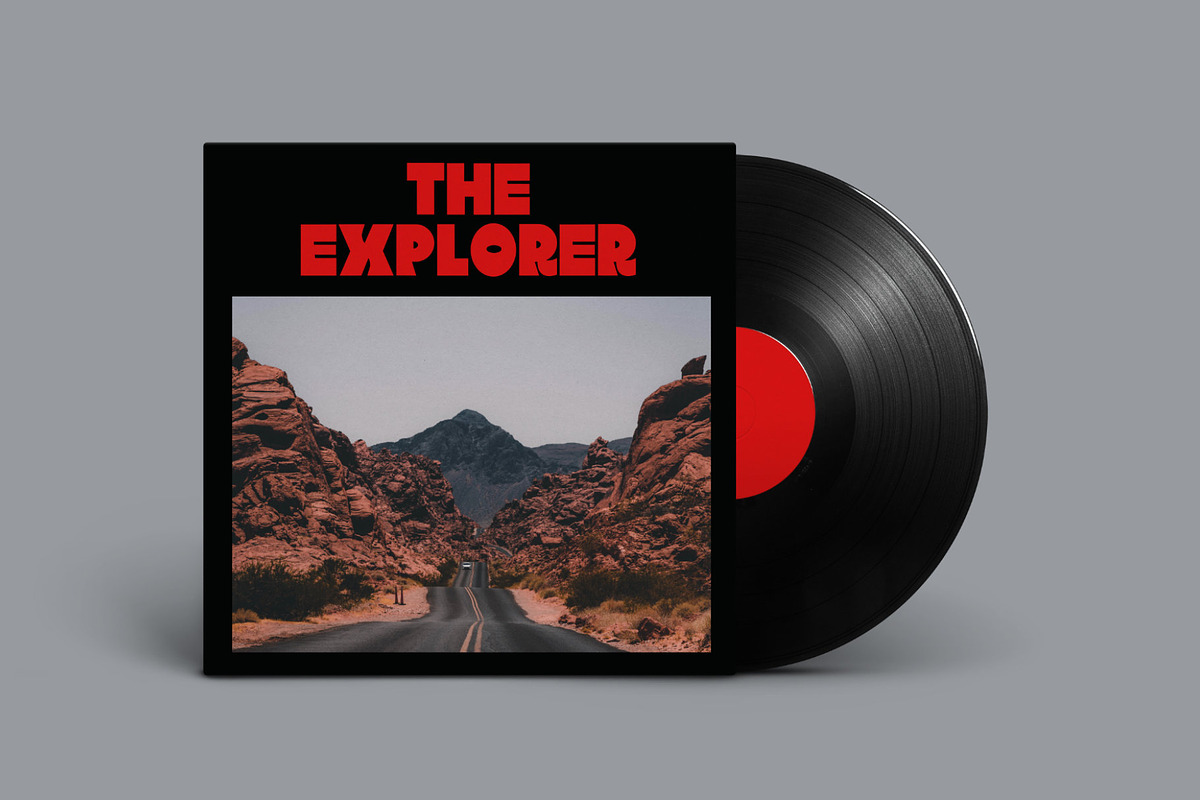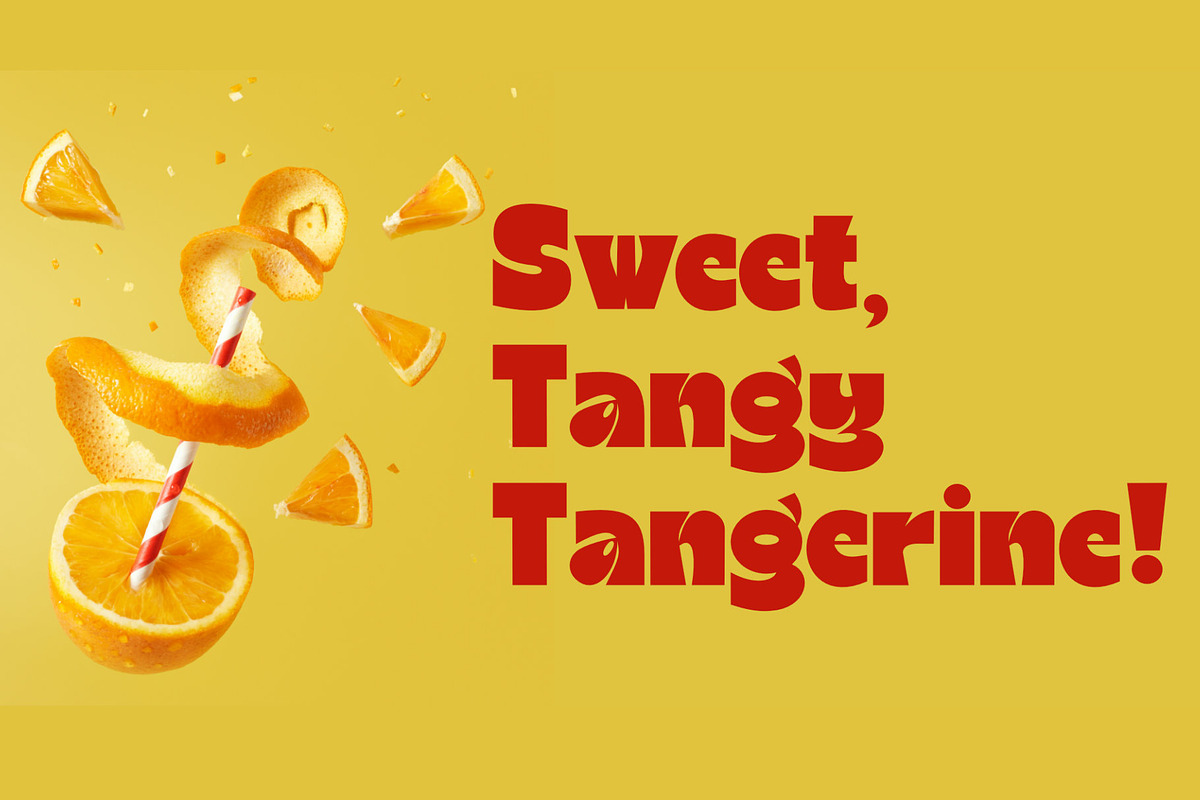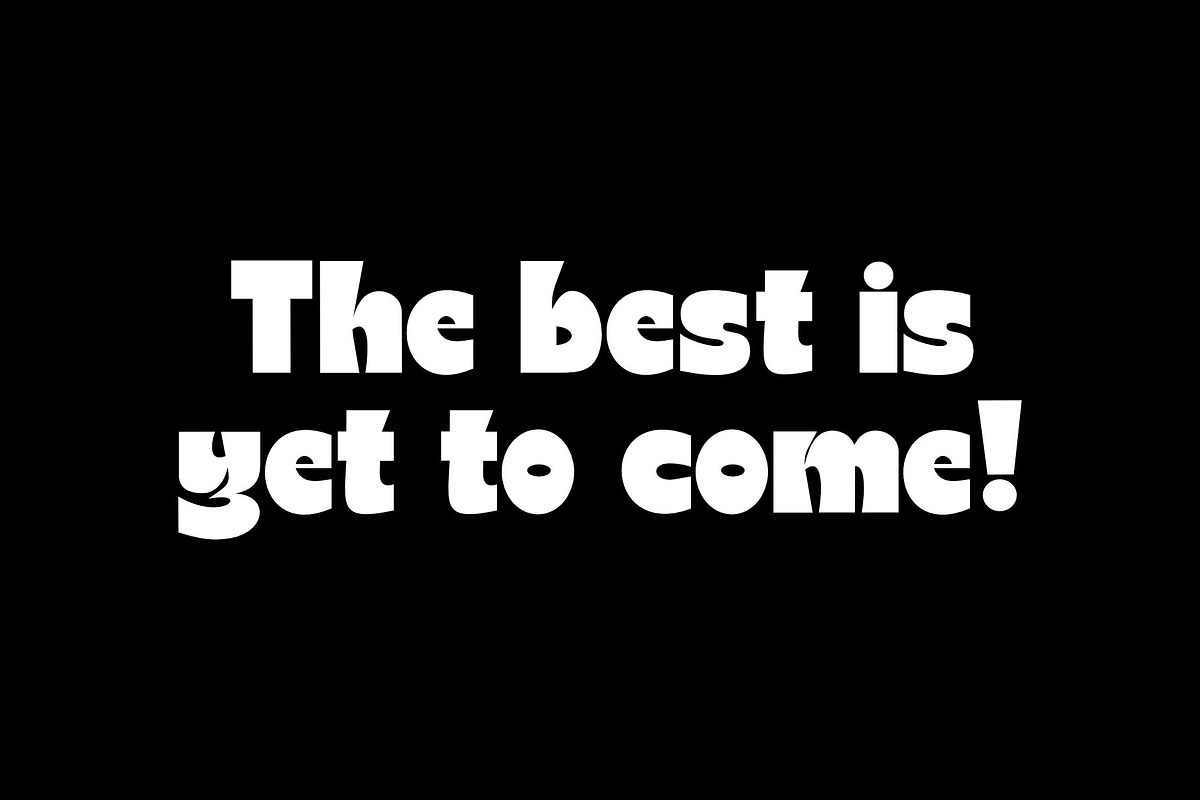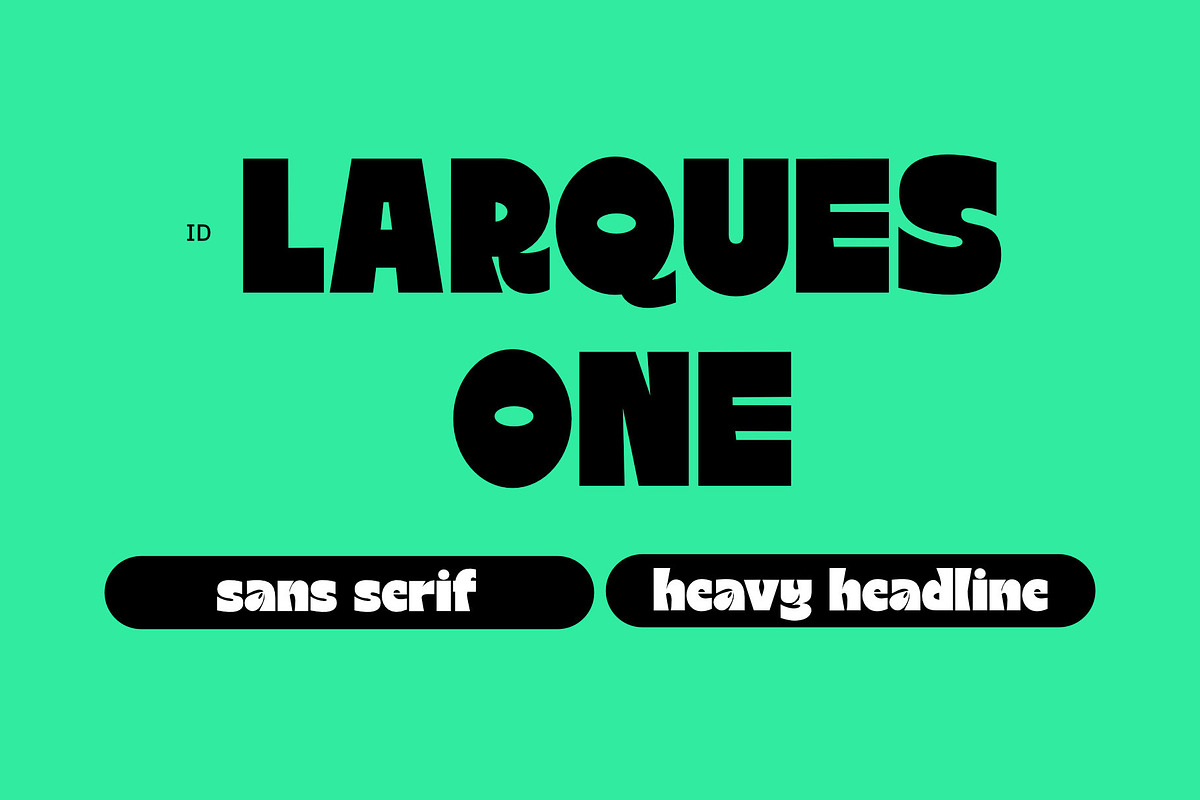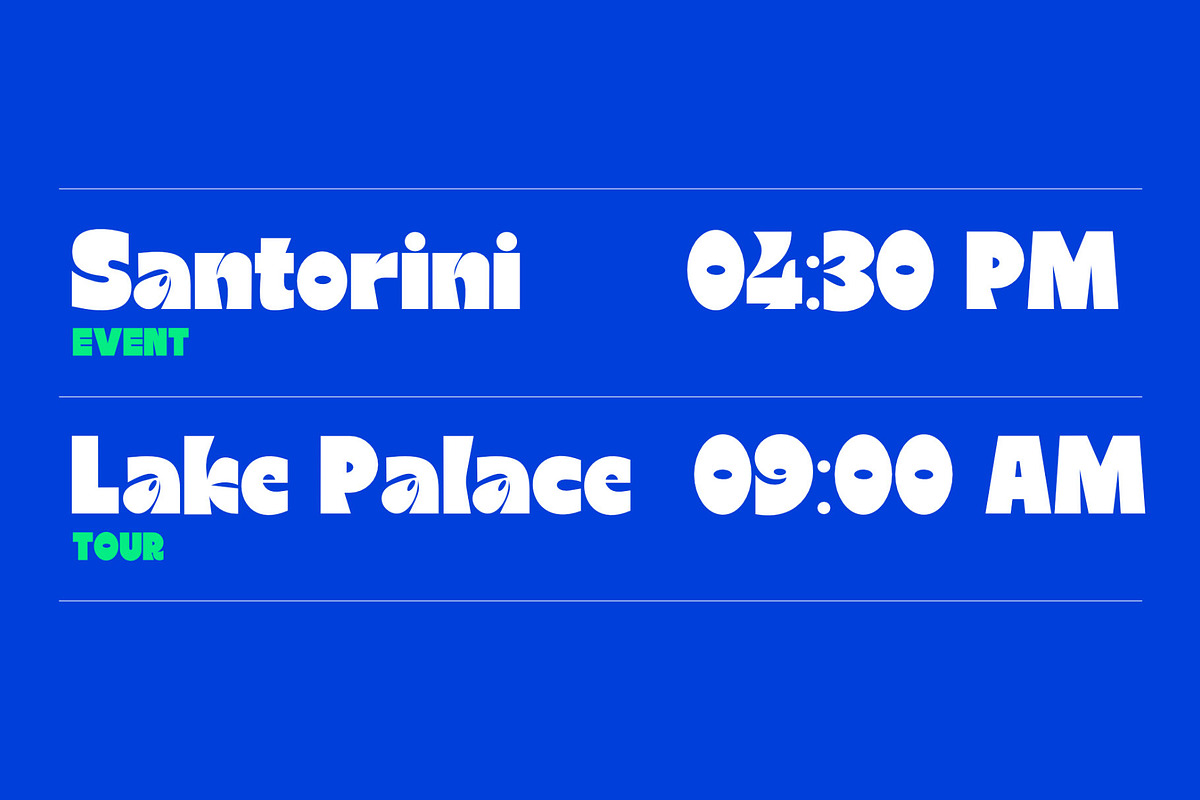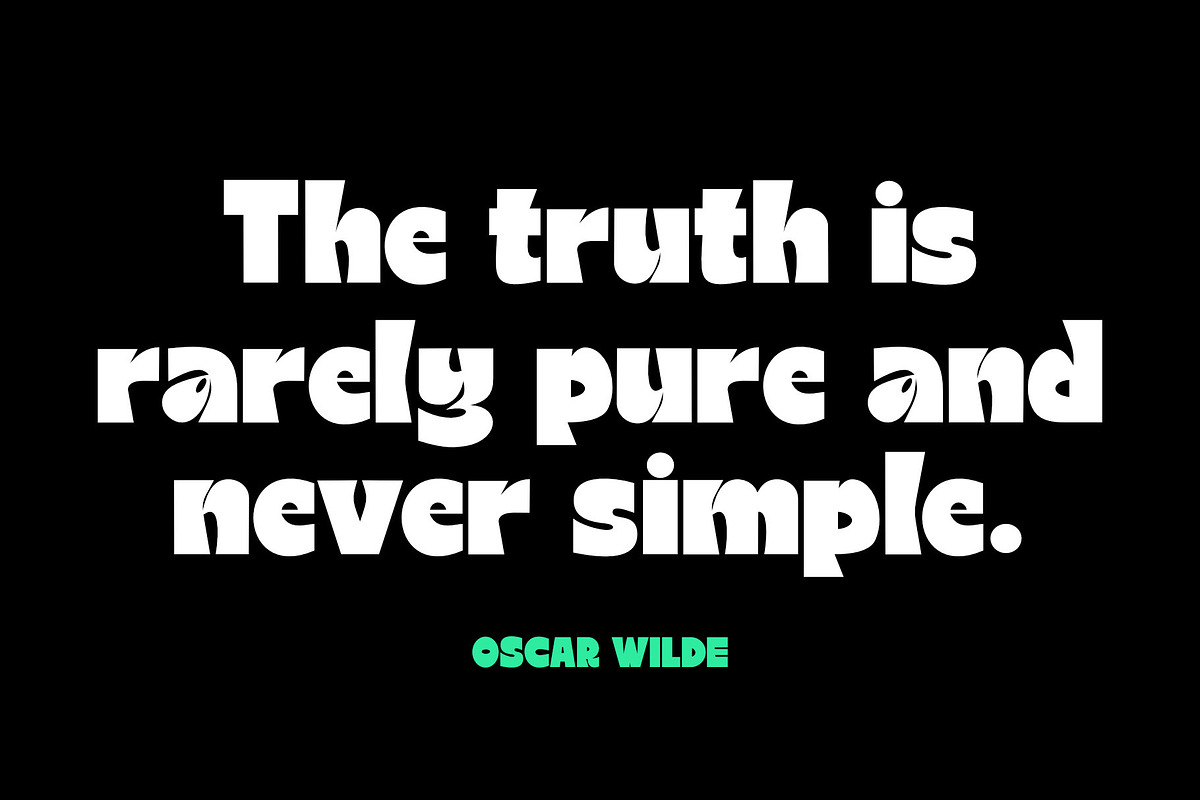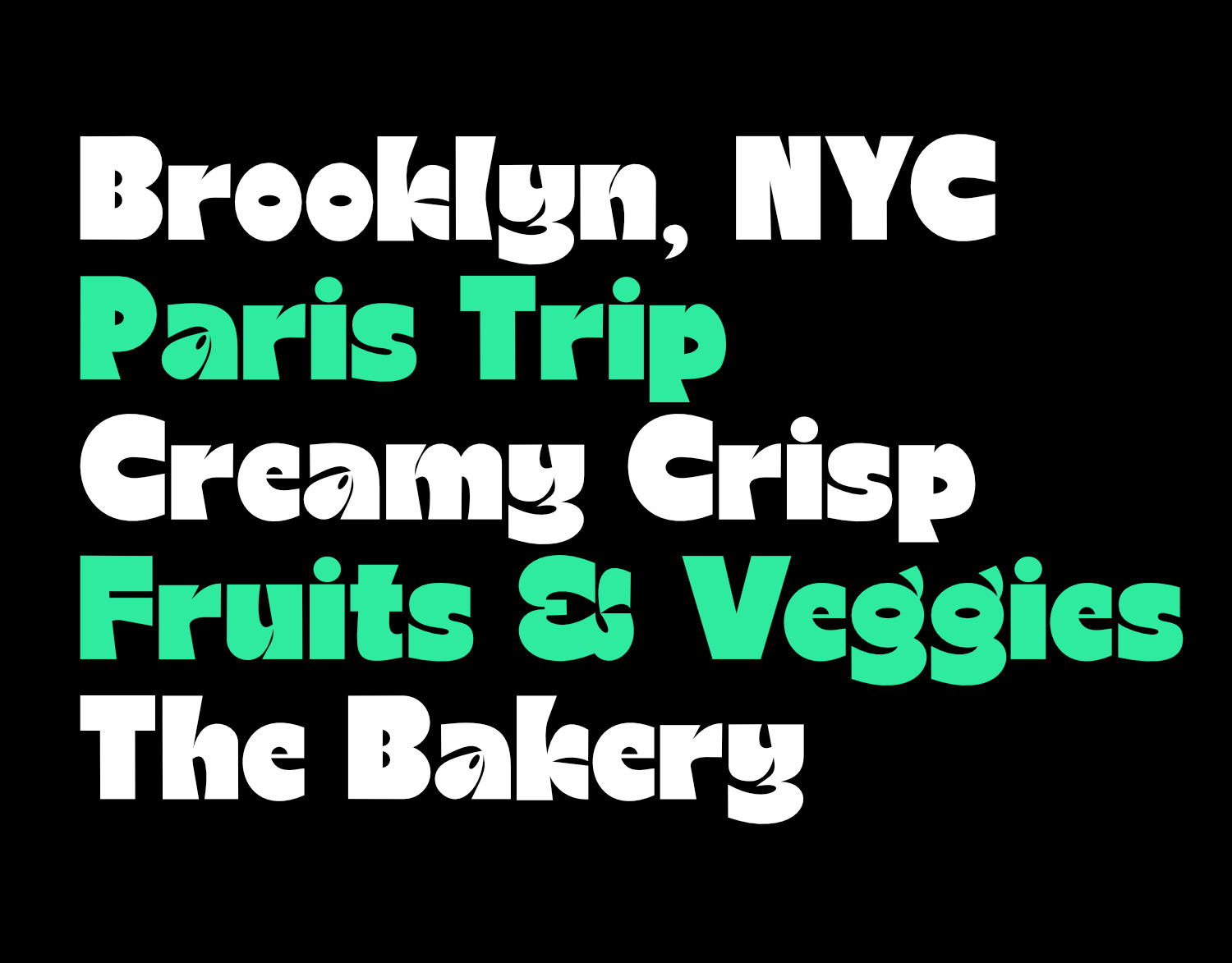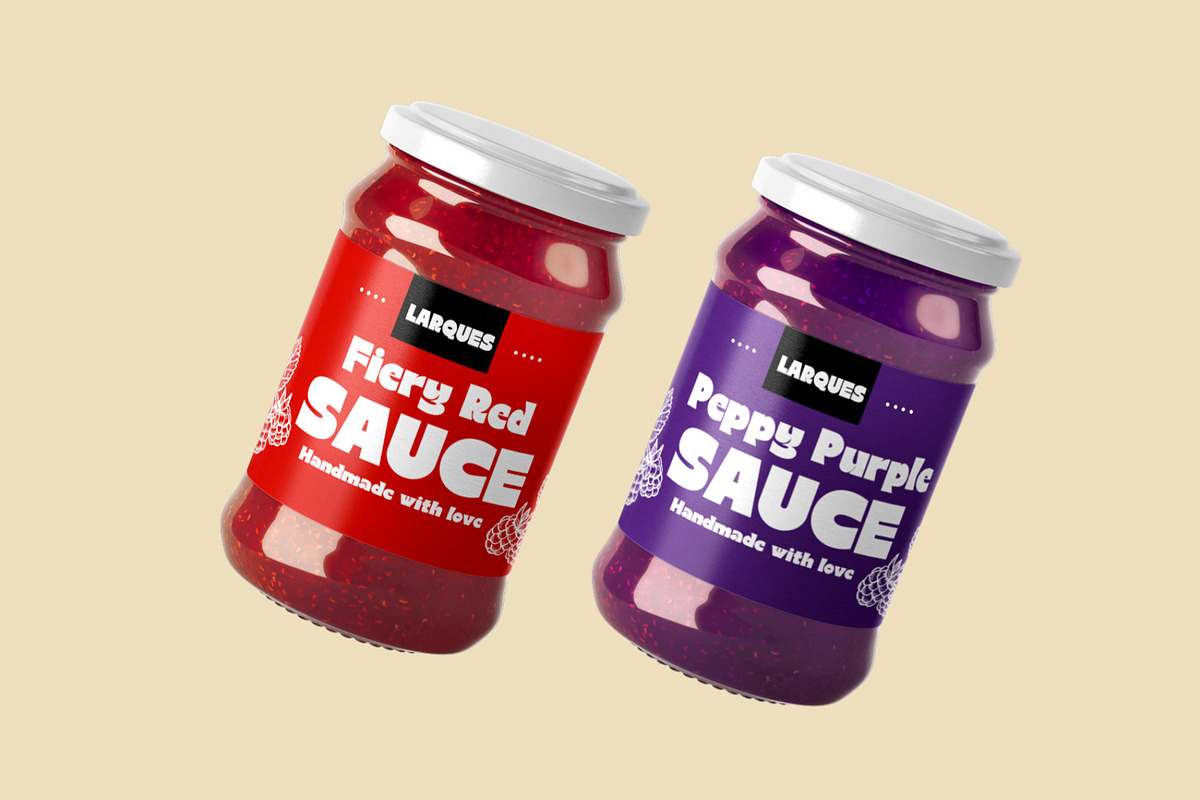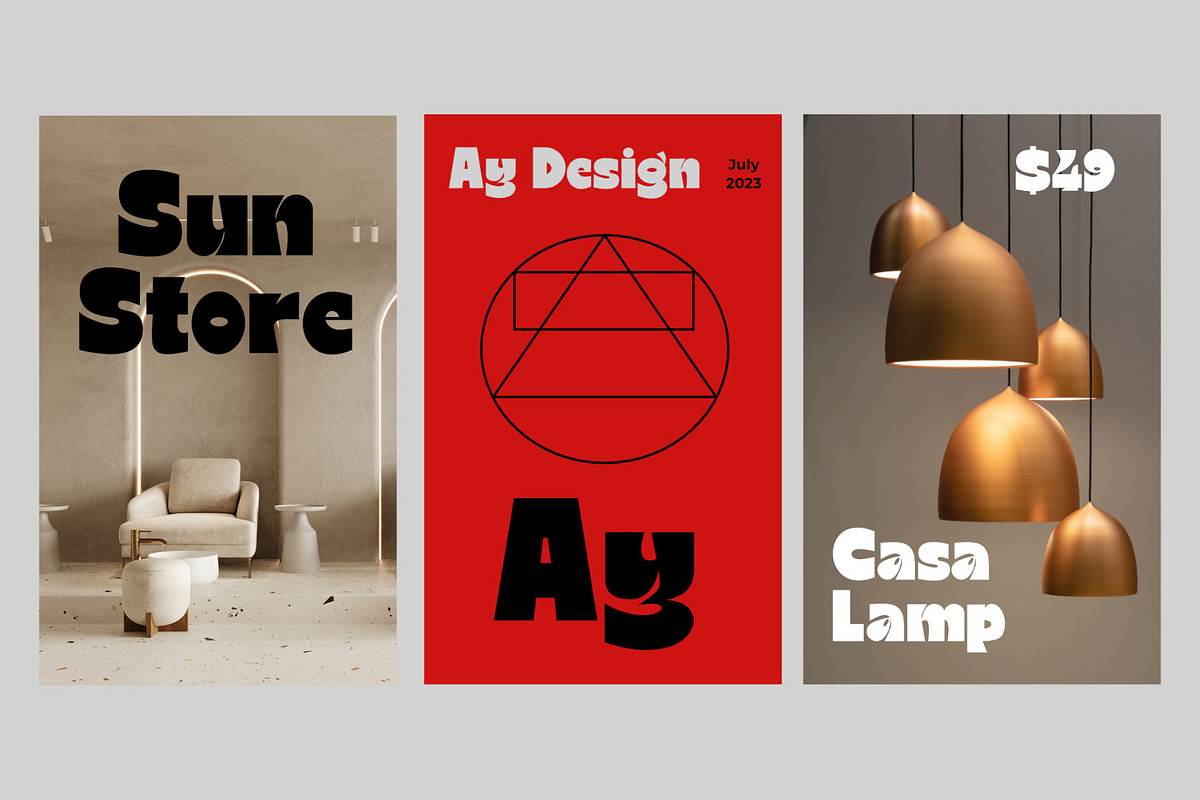
ID Larques One Typeface
Larques One is a display sans serif typeface designed to convey a fun and friendly feeling. Its fat face style and angled details contribute to its playful personality, making it suitable for branding, packaging, headlines, and posters. The font offers multi-language support and is customizable.